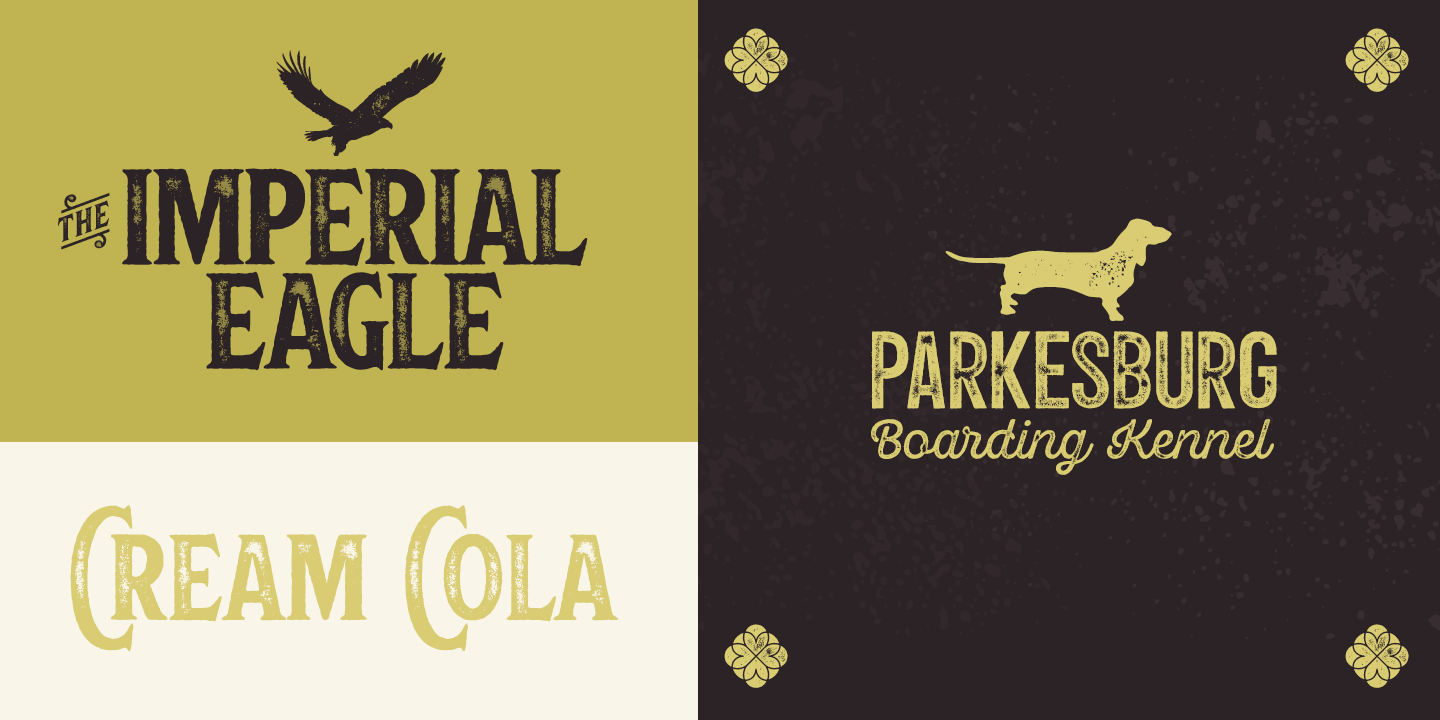
Hops And Barley Font is a rustic display typeface that captures craft brewing culture and artisanal spirit through organic letterforms and authentic character. This font is available for commercial use and must be purchased for business applications. You can download it for free for testing purposes only.
Hops And Barley Font excels in numerous design applications including craft brewery branding, beer label design, pub signage, distillery packaging, farm-to-table restaurant menus, artisan food labels, agricultural marketing, rustic wedding invitations, craft fair promotions, and authentic lifestyle branding. Its handcrafted character makes it perfect for brands emphasizing traditional craftsmanship and authentic quality.
What makes Hops And Barley Font so exciting is its authentic craft brewing personality and rustic charm, featuring organic letterforms, natural imperfections, and artisanal styling that creates immediate connection with craft culture while maintaining excellent readability. The font's authentic aesthetic conveys tradition and quality craftsmanship, making it ideal for breweries seeking to establish credibility within craft beer communities.
The Hops And Barley Font family includes multiple artisanal variations: Regular, Bold, Weathered, Textured, and Ornate versions, plus brewing-inspired decorative elements and flourishes. Each family member maintains consistent craft aesthetics while offering different levels of rustic character, providing designers with comprehensive options for authentic brewing typography compositions.
This exceptional typeface represents the perfect fusion of craft brewing tradition and contemporary branding needs, making Hops And Barley Font Free Download an essential tool for craft designers. The font's artisanal characteristics work exceptionally well in craft markets where authenticity, tradition, and quality craftsmanship are fundamental considerations.
Hops And Barley Font supports extensive character sets including international languages, comprehensive brewing symbols, and craft-related punctuation, ensuring creative flexibility for global craft brands. Its organic construction and natural spacing maintain readability while preserving the distinctive handcrafted character that defines its brewing appeal.
Professional designers choose Hops And Barley Font for its ability to create authentic craft brand identities and artisanal communications. The font's brewing heritage makes it particularly effective for craft breweries, artisan distilleries, farm restaurants, and traditional food producers where authenticity and craft credibility are essential.
The font's rustic sophistication and brewing versatility make it particularly suitable for microbreweries, craft distilleries, farm-to-table restaurants, artisan markets, and traditional food brands. Its authentic appeal ensures designs remain credible and engaging across changing craft culture trends.